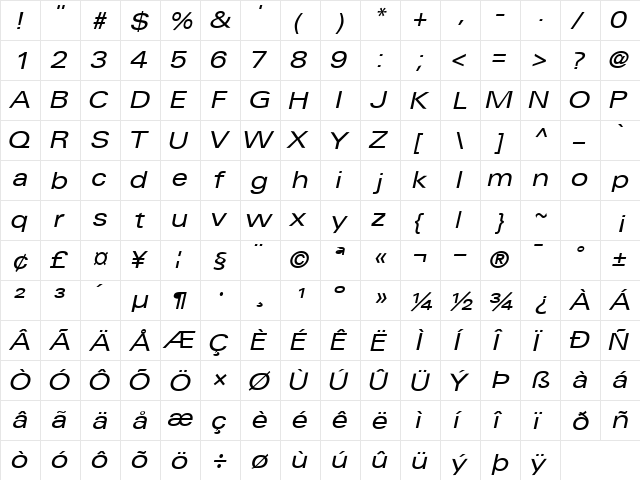
NovaExpandedSSK Italic
Design Context for NovaExpandedSSK Typeface
NovaExpandedSSK is a composed and adaptable typeface that performs quietly and consistently across a wide range of design contexts. The slanted form adds forward momentum and visual energy.
Pro Tip: Try NovaExpandedSSK for annotation and caption copy alongside an upright companion — the contrast in angle creates a dynamic but ordered typographic system.